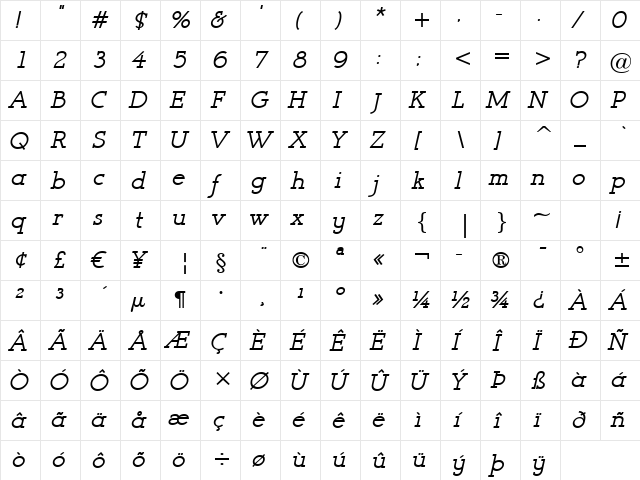
Register Serif BTN BoldOblique Font Preview
Design Context for Register Serif BTN Typeface
Register Serif BTN carries the refined structure of traditional serif typography, with bracketed terminals and considered proportions that communicate credibility and craft. The slanted form adds forward momentum and visual energy. Its bold stroke weight gives it real presence on the page.